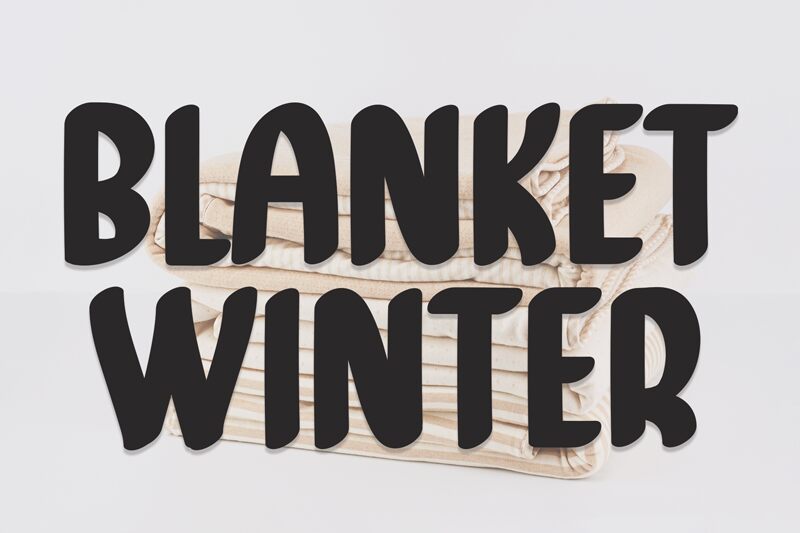
Blanket Winter
Blanket Winter, a creation by Scratchones, encapsulates the warmth and coziness of chilly seasons with its unique brush style. Its semi-light weight offers a gentle presence on the page, while the condensed width ensures impactful use of space without overwhelming the canvas. The brush strokes are reminiscent of an artist's hand, lending an organic touch to digital designs.
This font's aesthetic is versatile yet distinct, making it an excellent choice for projects that require a personal and artistic flair. Whether gracing invitations, branding materials, or social media graphics, Blanket Winter adds a touch of elegance and intimacy. Its brushed characteristics pair beautifully with visuals that evoke comfort and homemade charm.
Embrace the stylized strokes of Blanket Winter to infuse your creative endeavors with a sense of crafted beauty that stands out in today’s digital landscape.